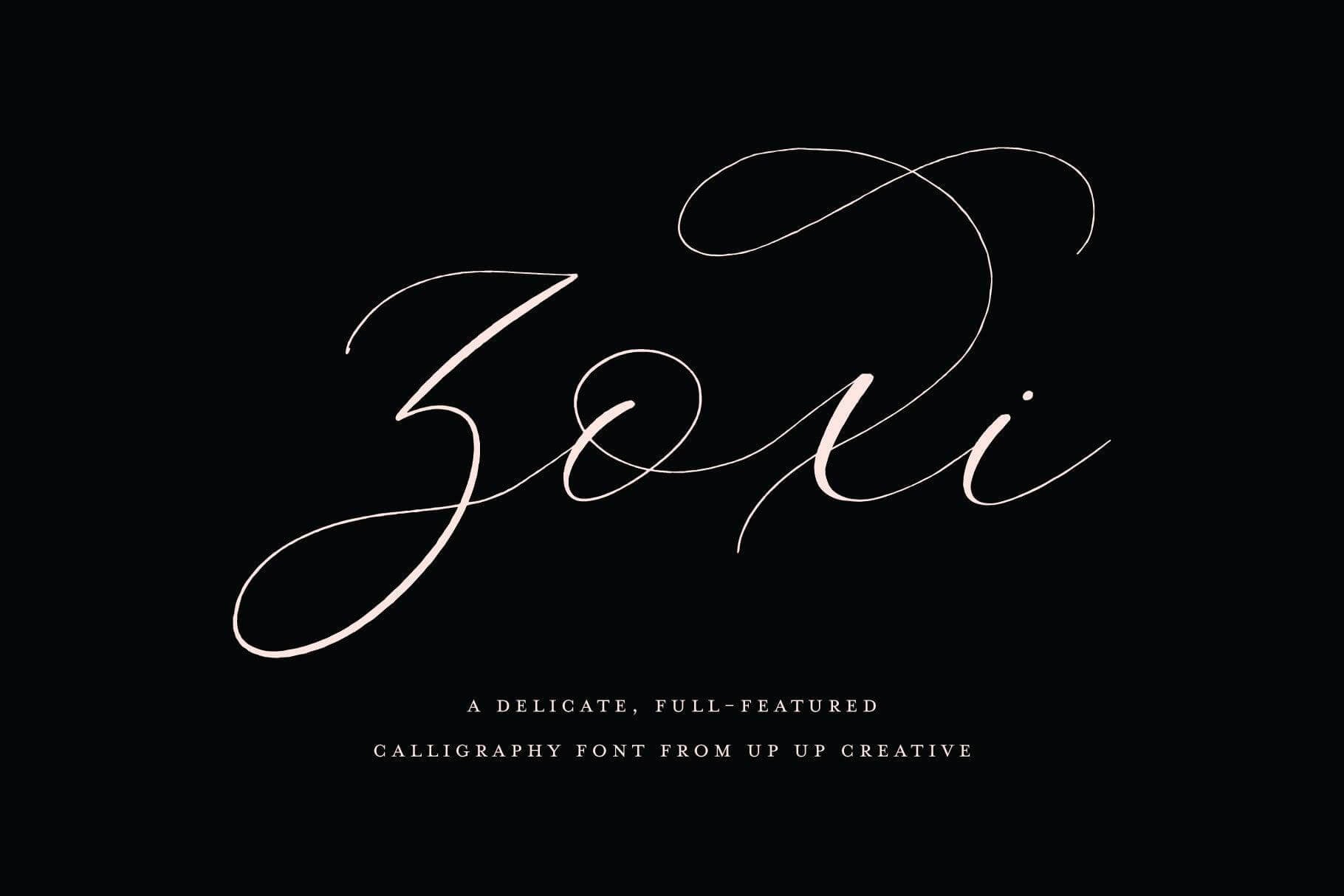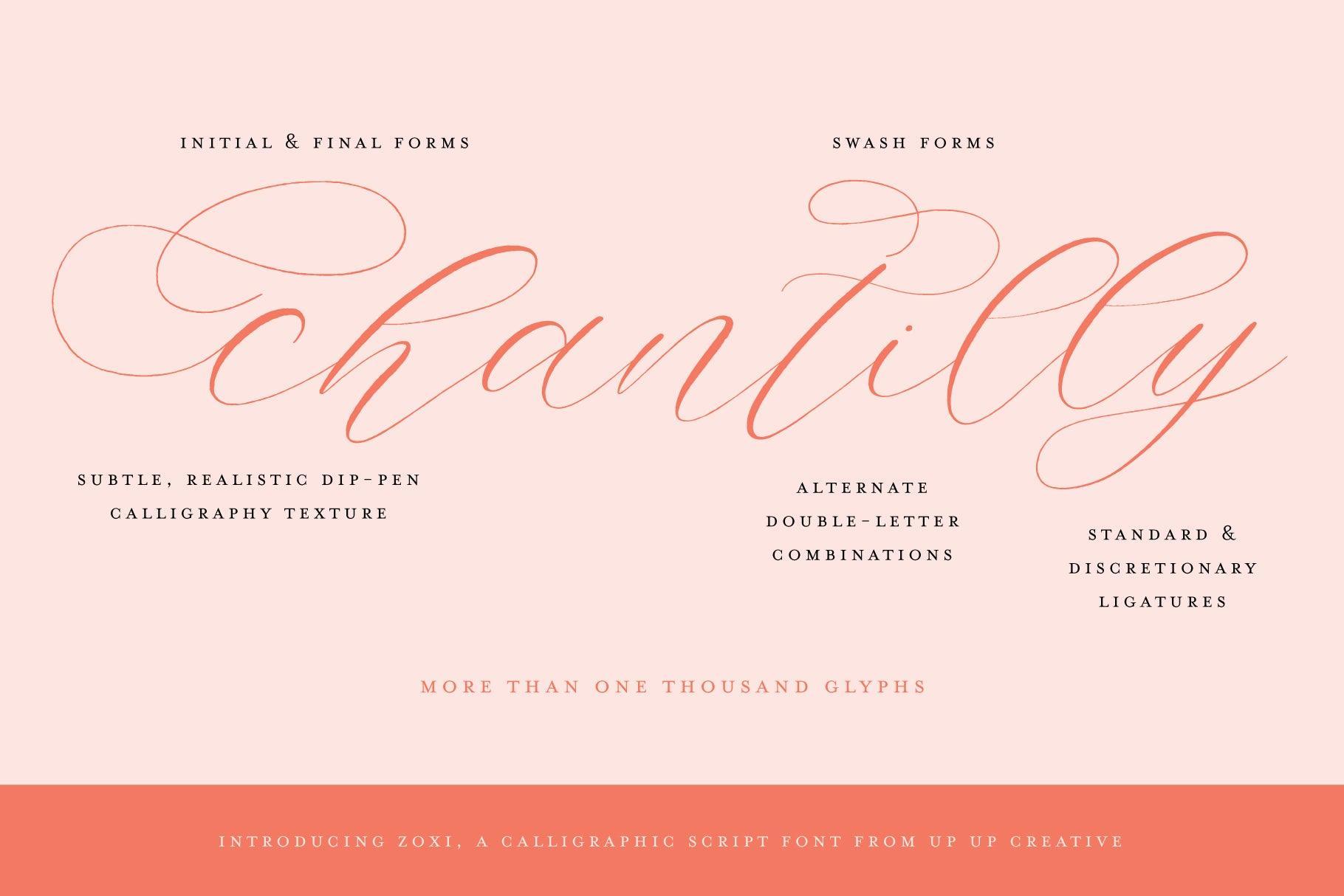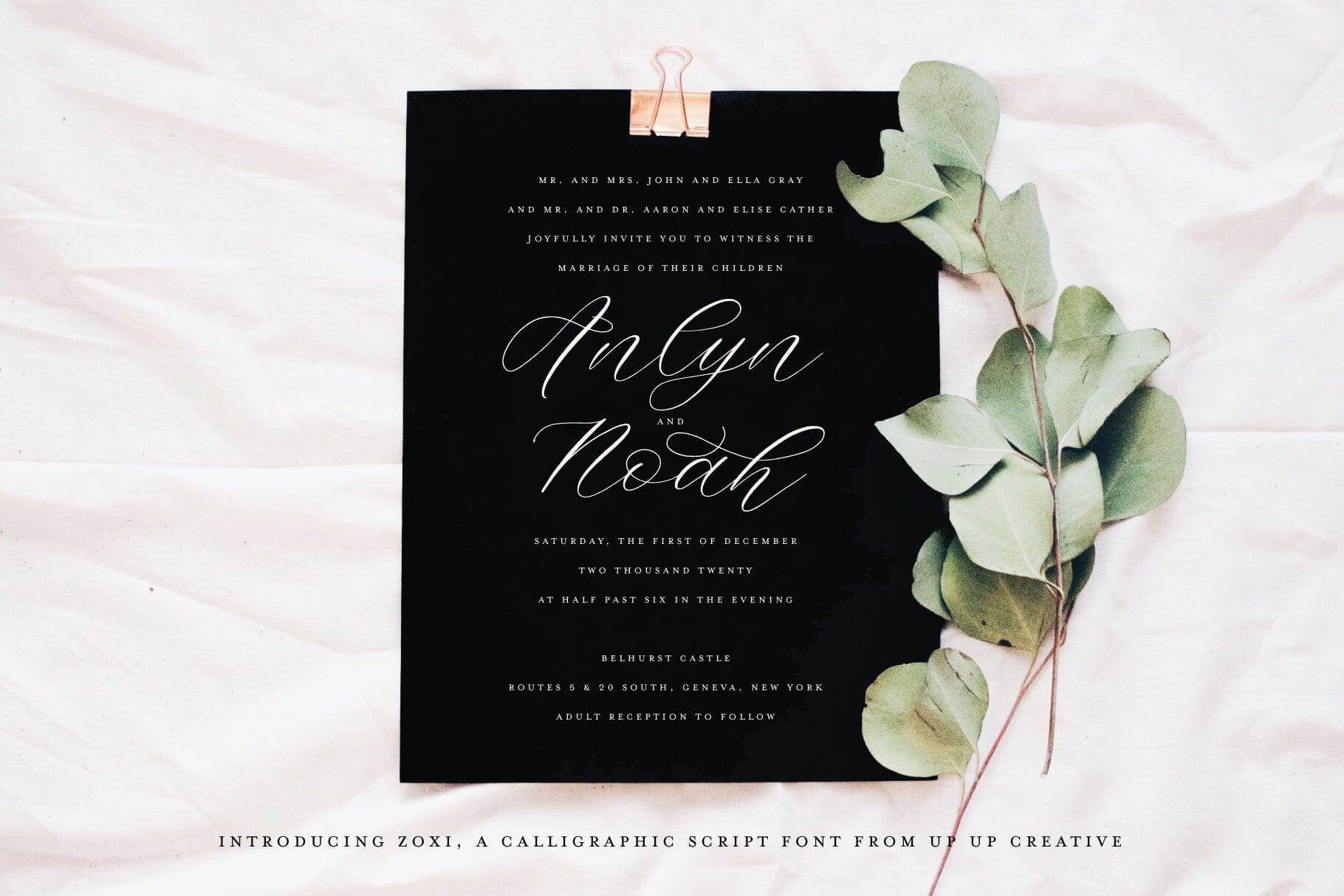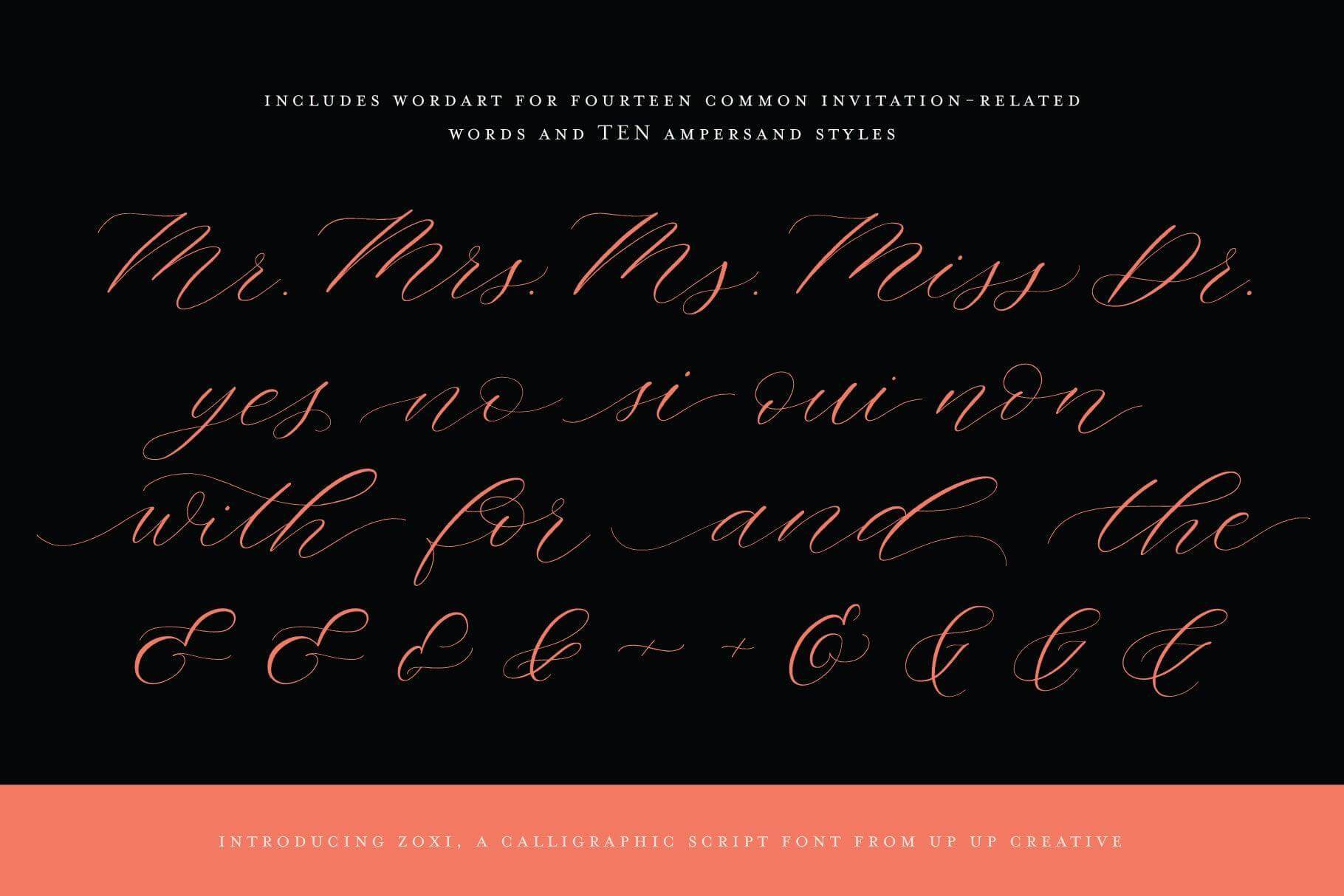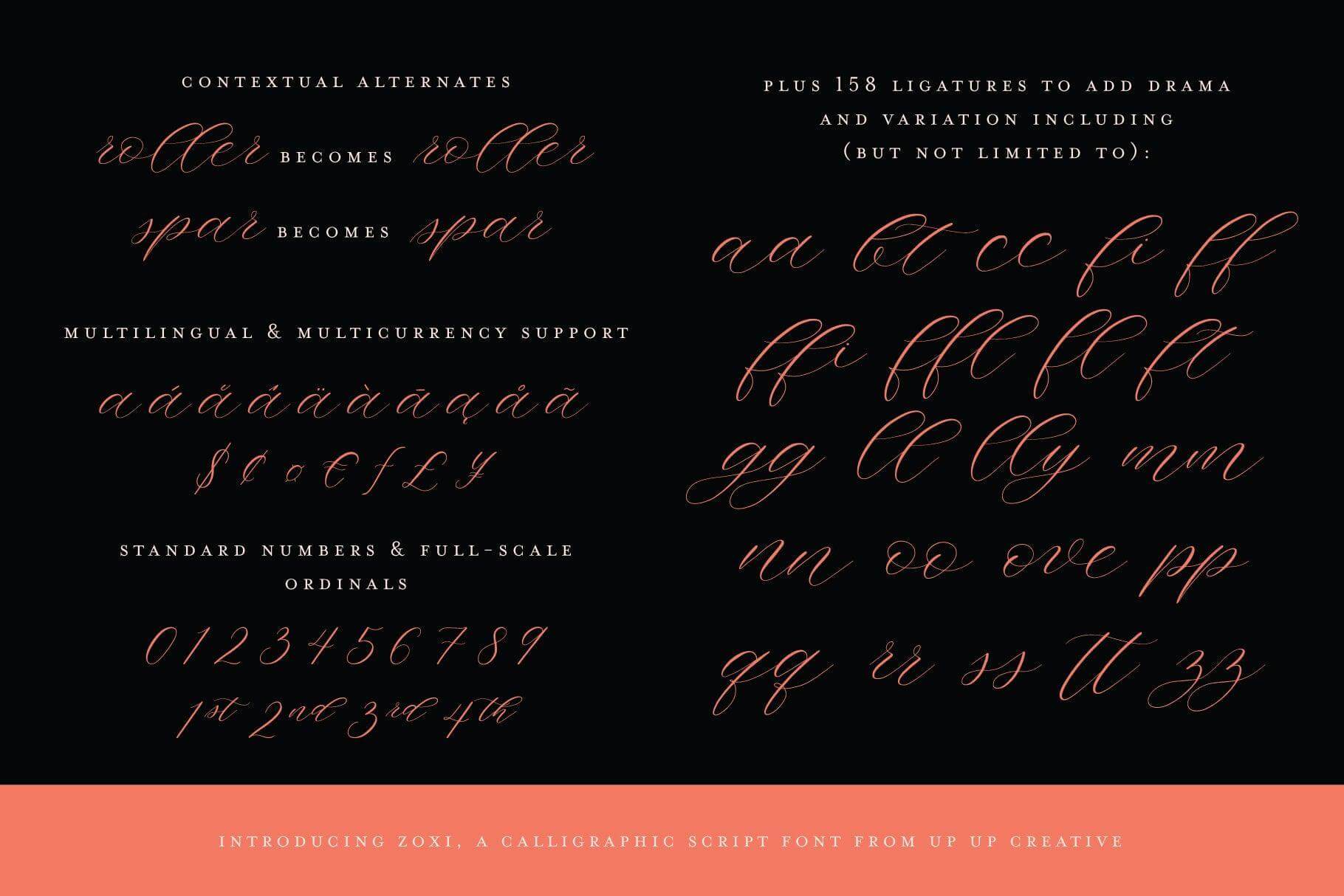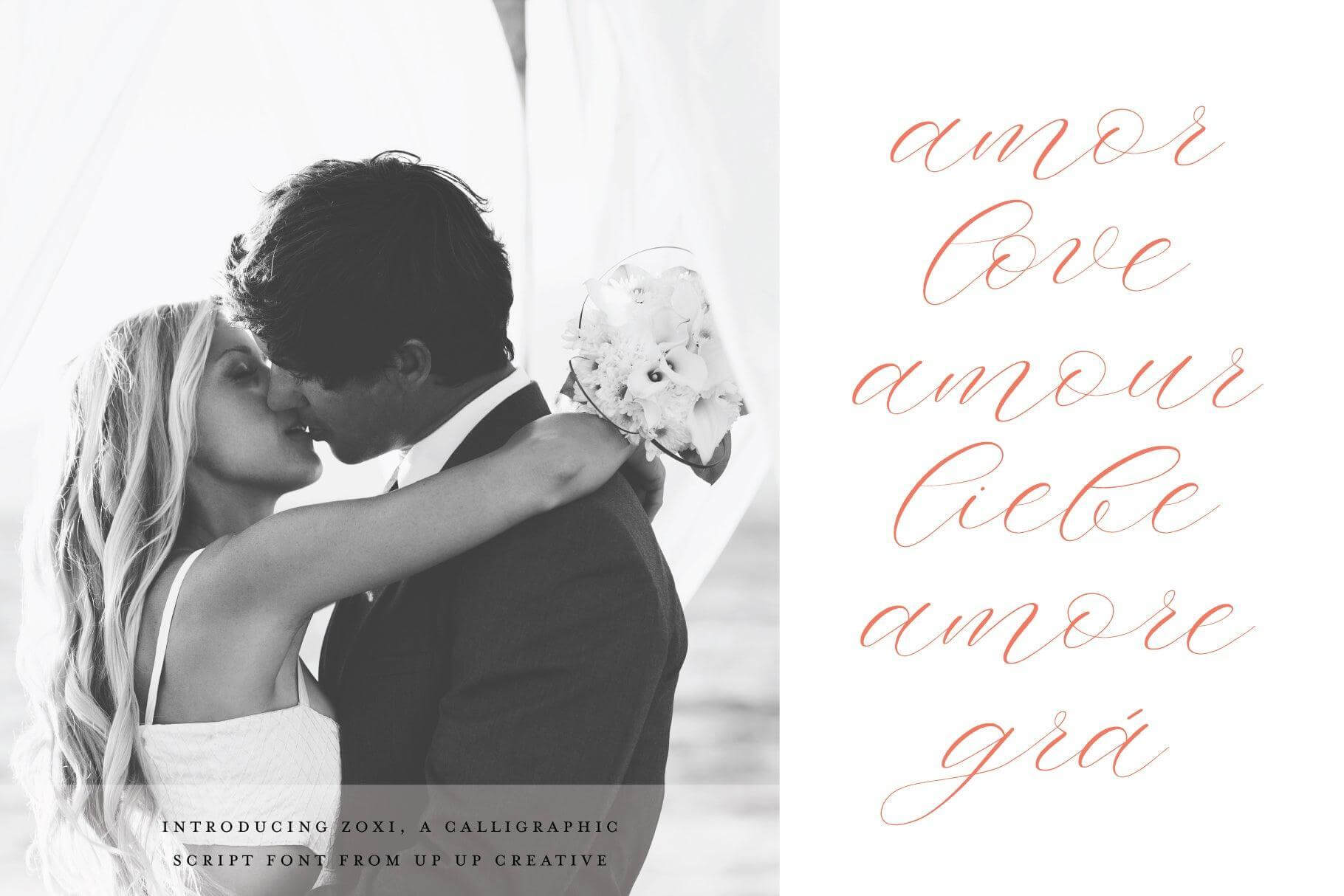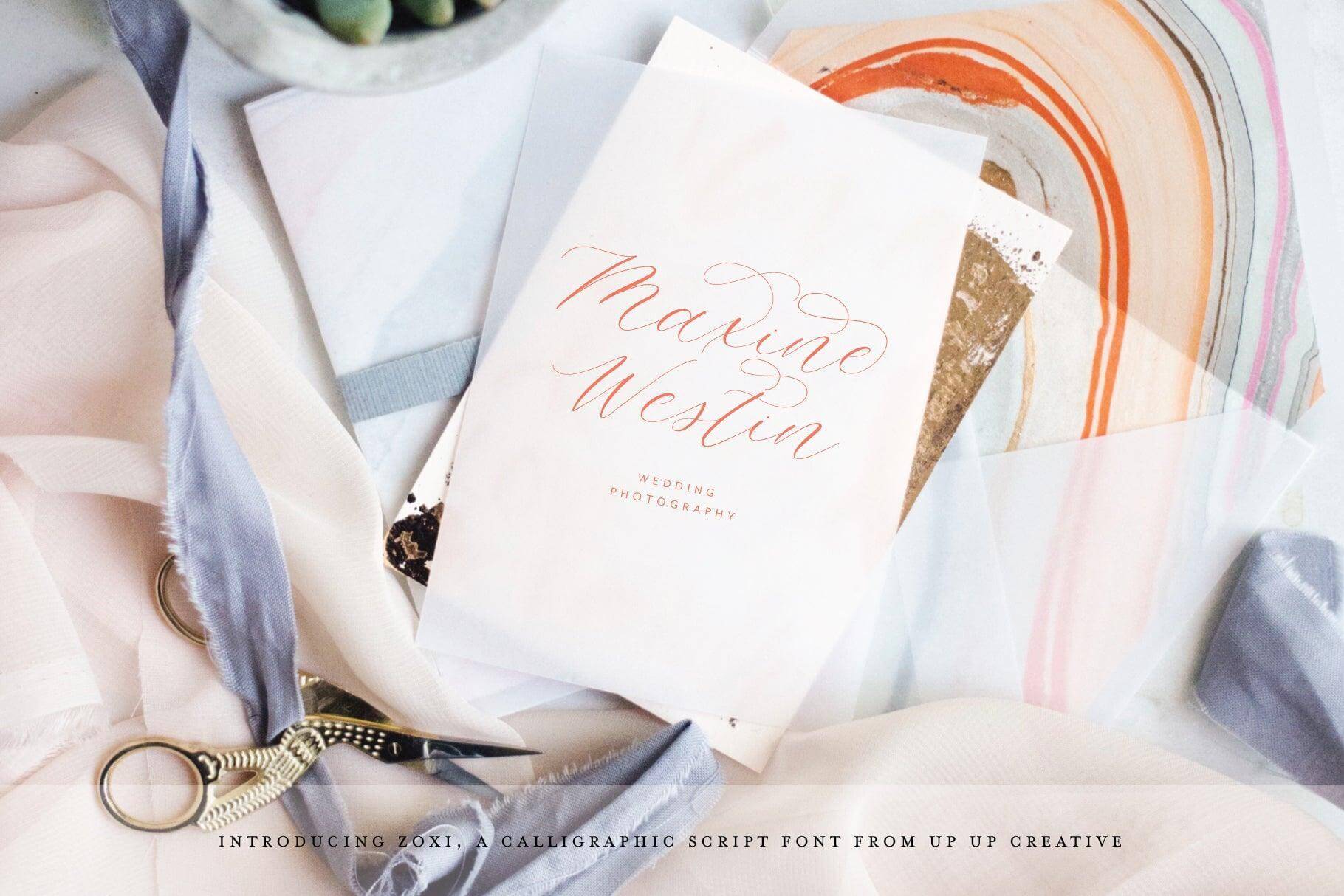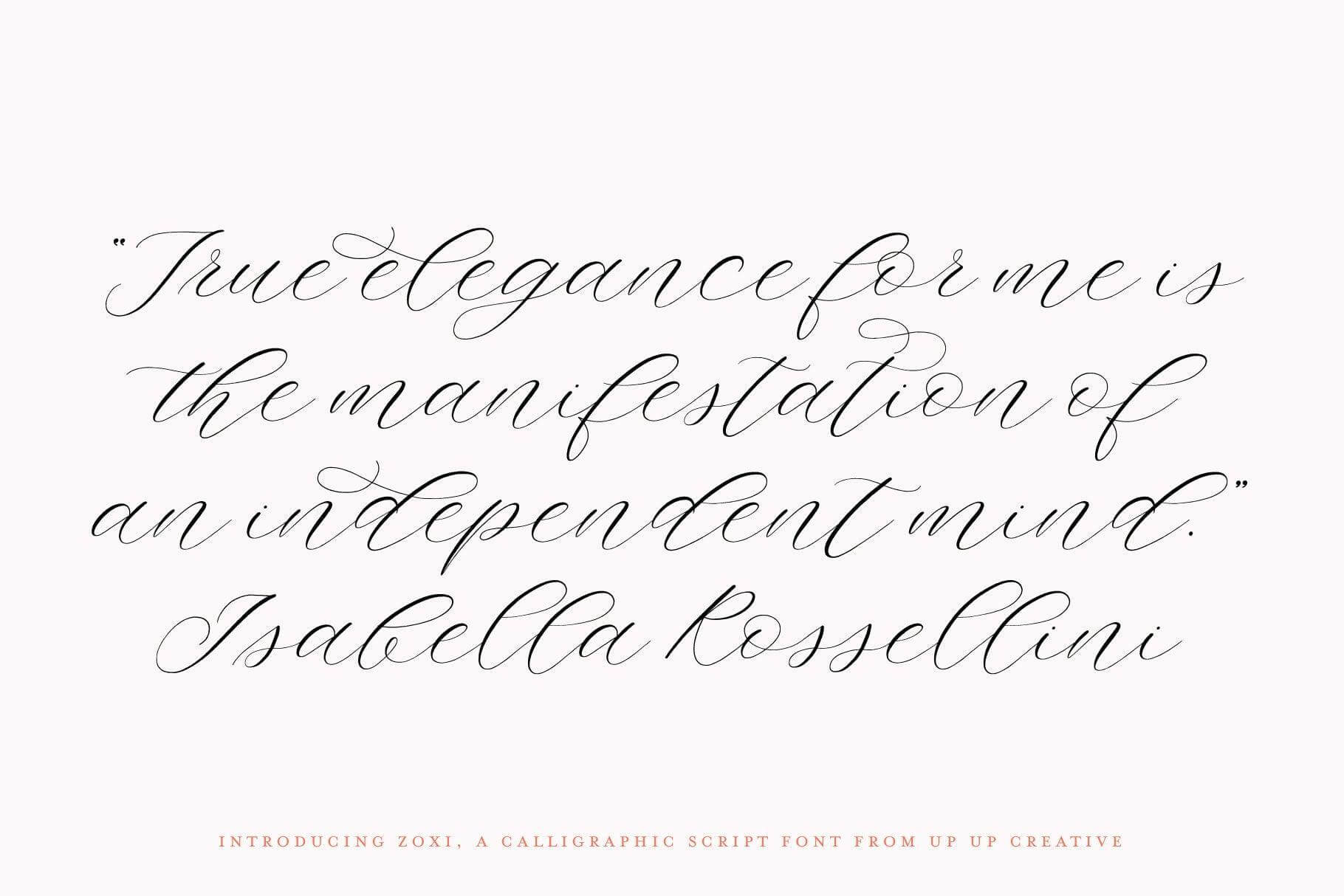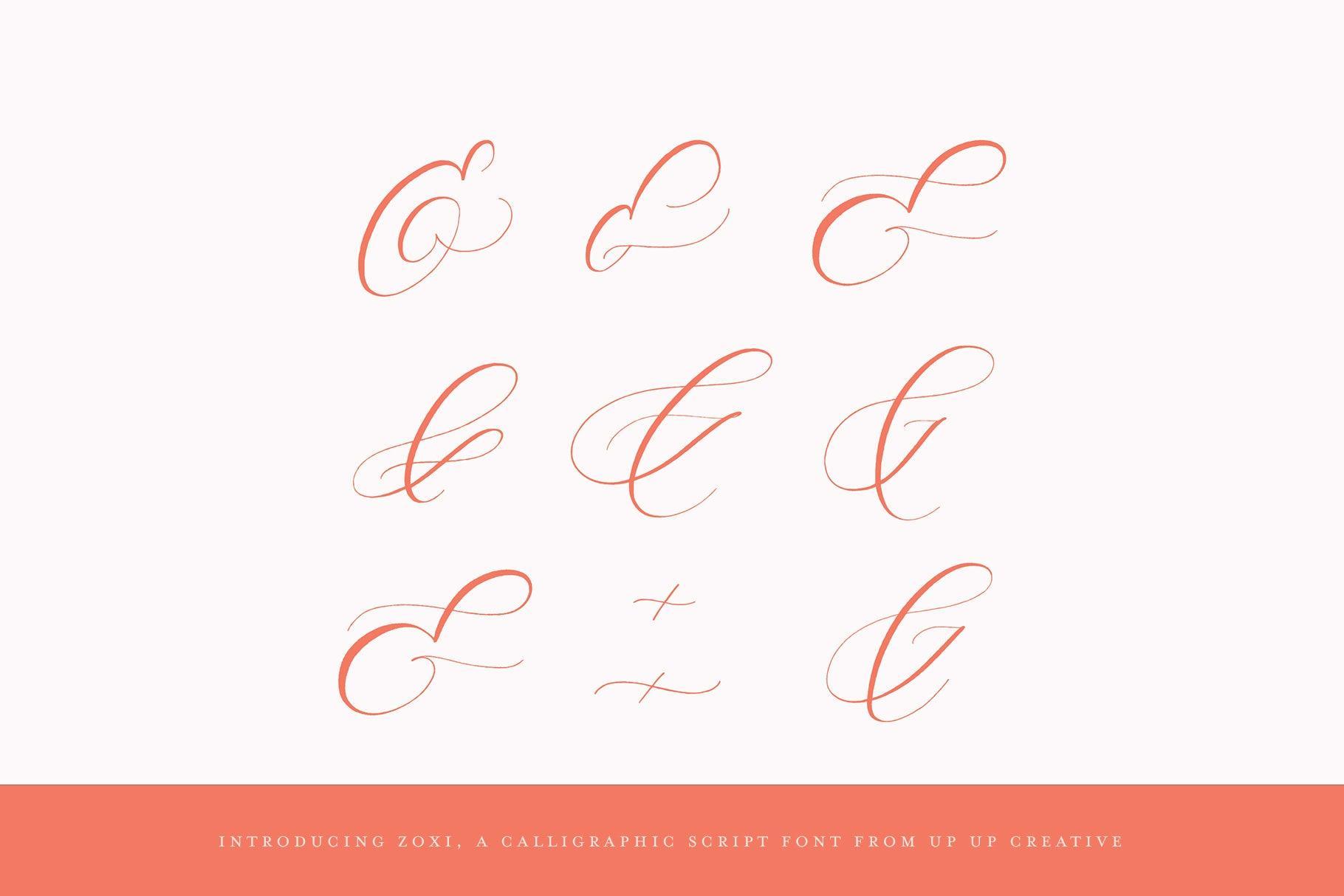
Zoxi Script Font
Zoxi is an elegant, full-featured script font with subtle dip-pen calligraphy texture and tons of OpenType features. Hand-lettered with delicate thin strokes and more substantial thick strokes, Zoxi is particularly well-suited to invitations, branding, and editorial design.
OpenType Features
- contextual alternates
- standard and discretionary ligatures
- initial and terminal forms
- fractions
- localized forms (multi-language and multi-currency support)
- ordinals and superscripts
- stylistic alternates
- stylistic sets
- swashes
Includes 158 ligatures
- Released in 2018
- Includes 1027 glyphs
- 1 Style, 1 Weight